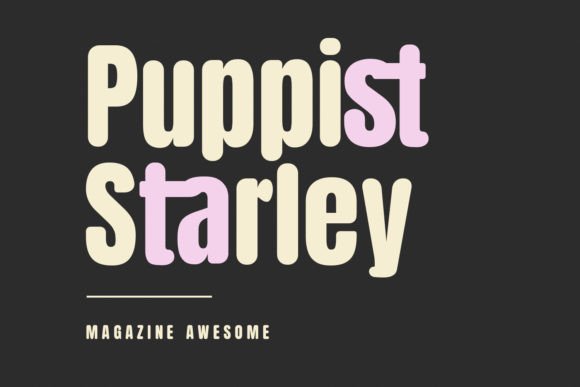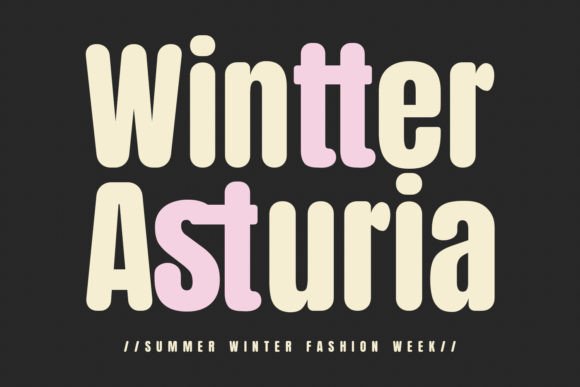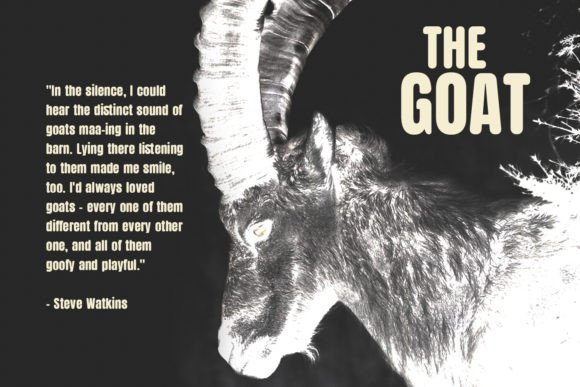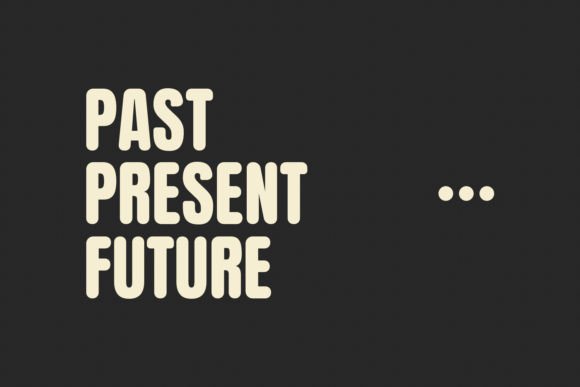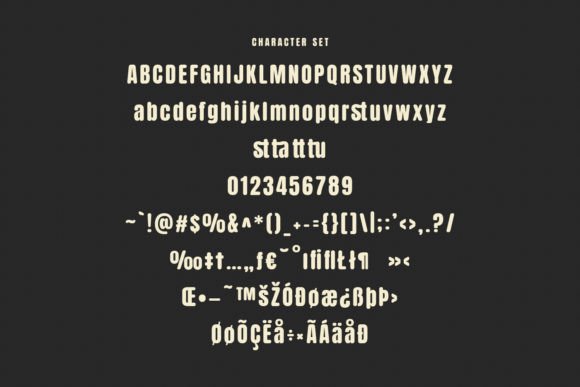
Introducing Cardift Font: The Ultimate Sans Display Font for Creative Projects
Are you tired of using the same old fonts for your design projects? Look no further than Cardift Font, a sans display font that is sure to take your work to the next level. With its bold, tall, and rounded strokes, Cardift is the perfect choice for designers and crafters looking to add a touch of fun and creativity to their projects.
What Makes Cardift Font So Special?
Cardift Font is a unique and versatile font that offers a range of features that set it apart from other fonts. Some of its key characteristics include:
- Bold and Tall Strokes: Cardift’s bold and tall strokes make it perfect for headlines, titles, and short texts. Its tall letters give it a sense of grandeur and elegance, making it ideal for projects that require a touch of sophistication.
- Rounded Strokes: The rounded strokes of Cardift give it a friendly and approachable feel, making it perfect for projects that require a more playful and casual tone.
- Fun Character with Ligature: Cardift’s fun character and ligature features make it perfect for creative projects that require a touch of whimsy and personality.
- Multilingual Support: Cardift font supports multilingual language, making it a great choice for designers and crafters who work with clients from around the world.
Use Cases for Cardift Font
Cardift Font is a versatile font that can be used for a wide range of projects, including:
- Logo Design: Cardift’s bold and tall strokes make it perfect for logo design, especially for brands that want to make a statement and stand out from the crowd.
- Social Media: Cardift’s fun and playful character make it perfect for social media graphics, including Facebook posts, Twitter headers, and Instagram stories.
- Movie Titles and Book Titles: Cardift’s elegant and sophisticated feel make it perfect for movie titles and book titles, adding a touch of glamour and sophistication to any project.
- Short Text and Long Text: Cardift font is suitable for both short text and long text, making it a great choice for designers and crafters who need a font that can handle a range of text lengths.
- Secondary Text Font: Cardift font pairs well with both sans and serif fonts, making it a great choice for secondary text font.
Tips for Using Cardift Font
- Experiment with Different Sizes: Cardift font looks great in a range of sizes, from small and delicate to large and bold. Experiment with different sizes to find the one that works best for your project.
- Pair with Other Fonts: Cardift font pairs well with both sans and serif fonts. Try pairing it with other fonts to create a unique and interesting contrast.
- Use Ligatures: Cardift font’s ligature feature adds a touch of whimsy and personality to your text. Use ligatures to add visual interest to your project.